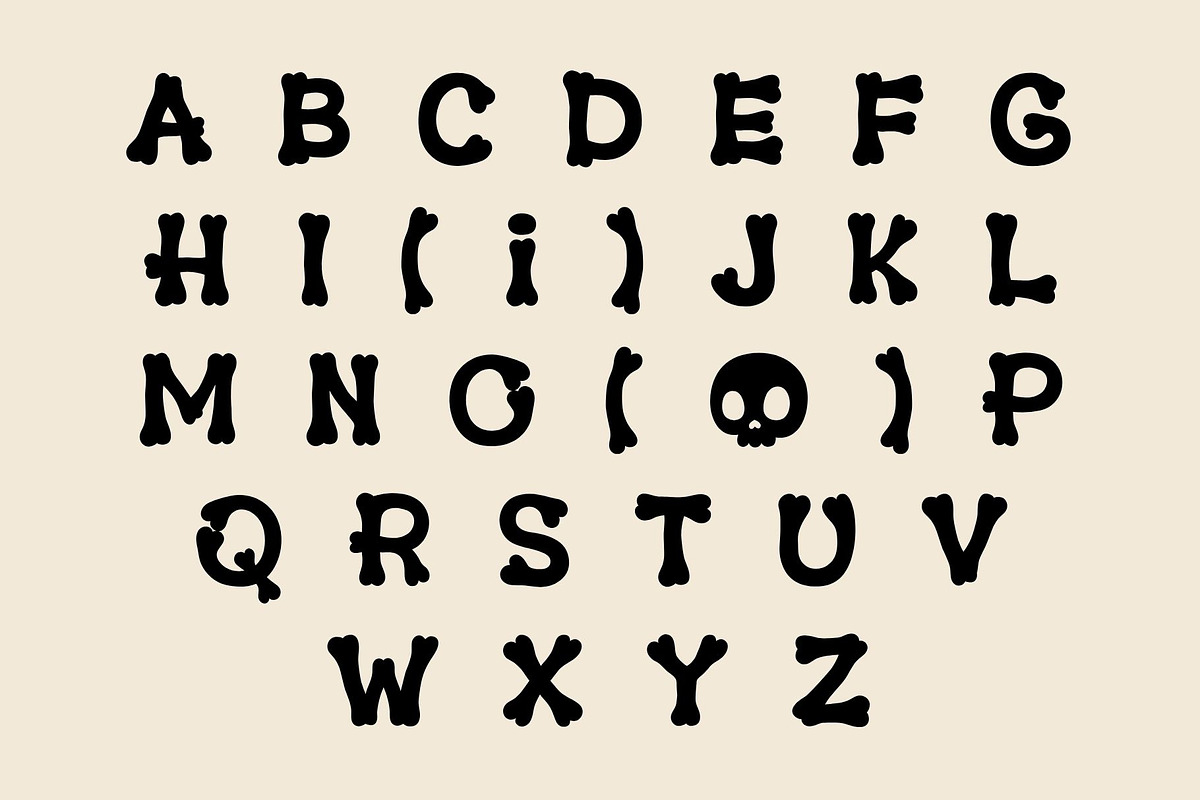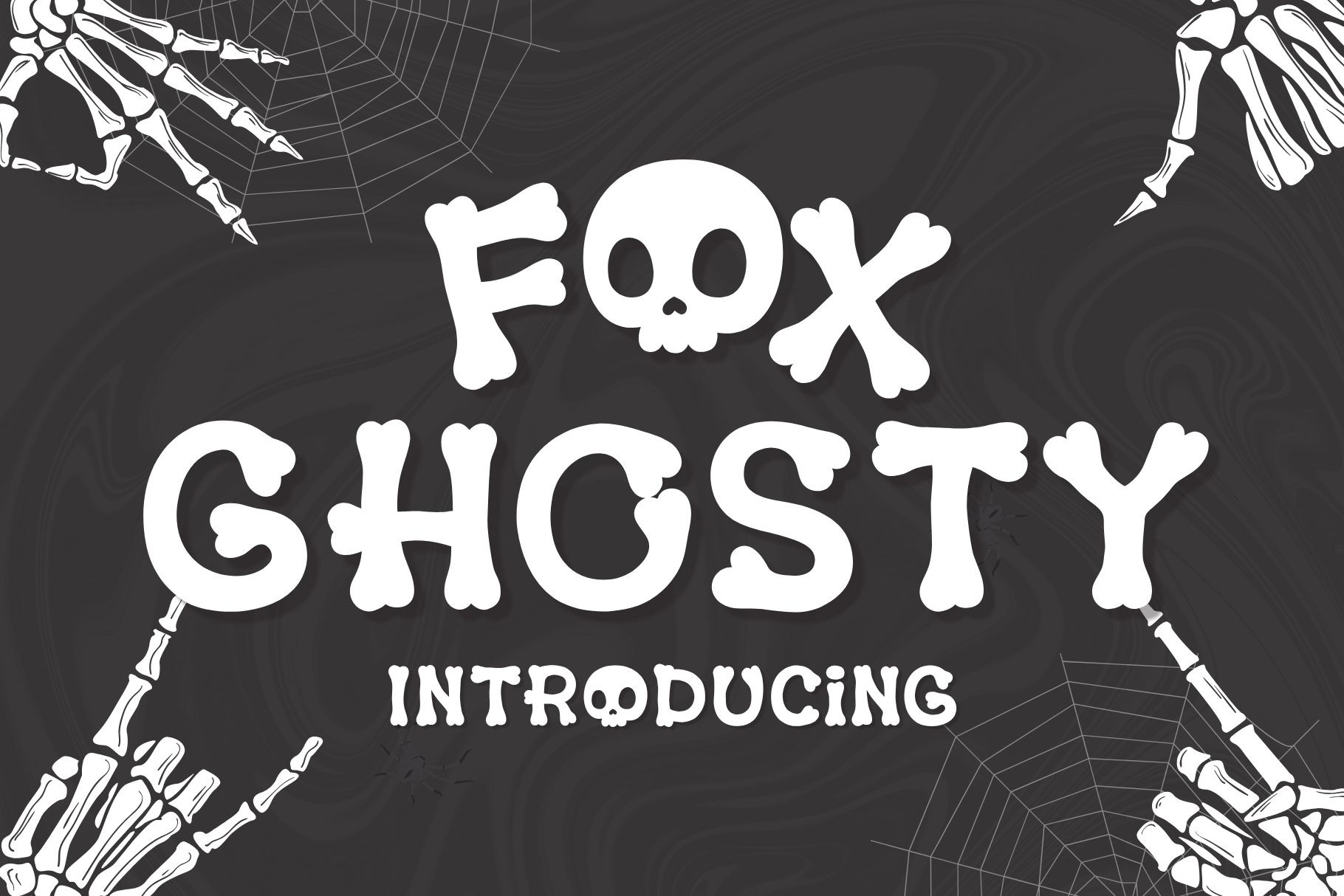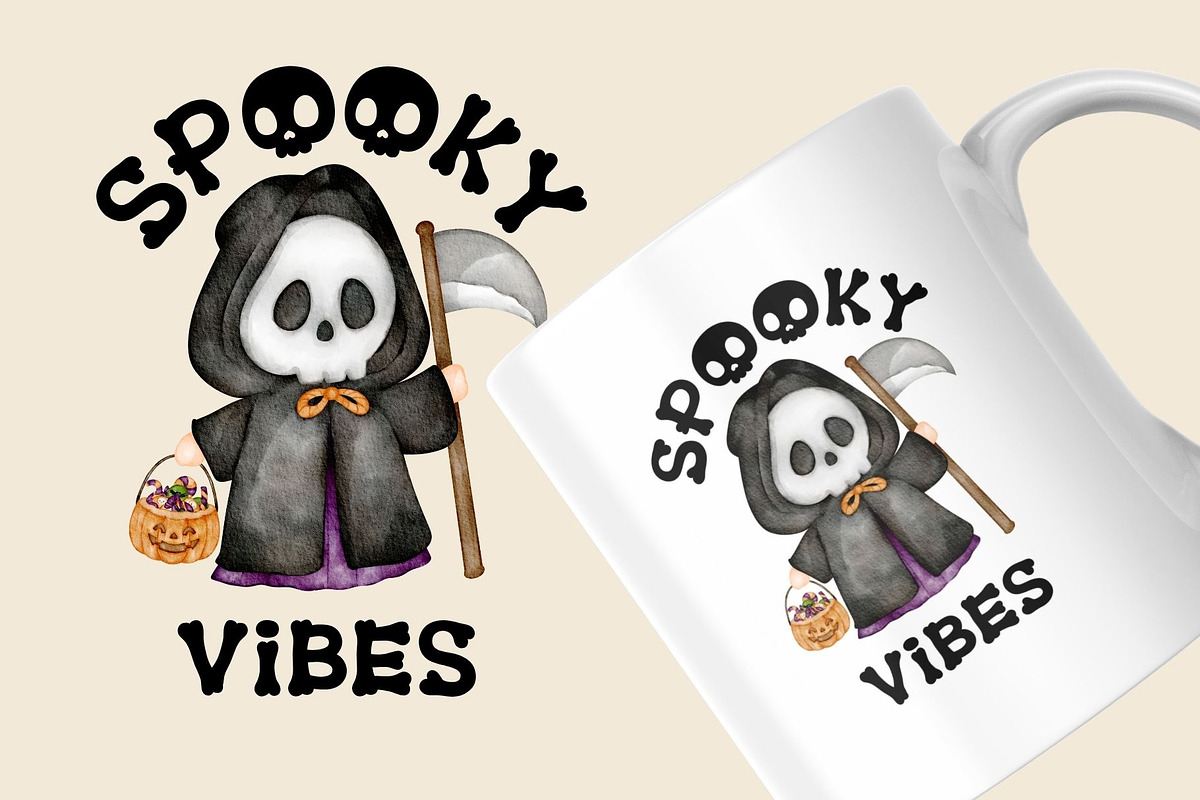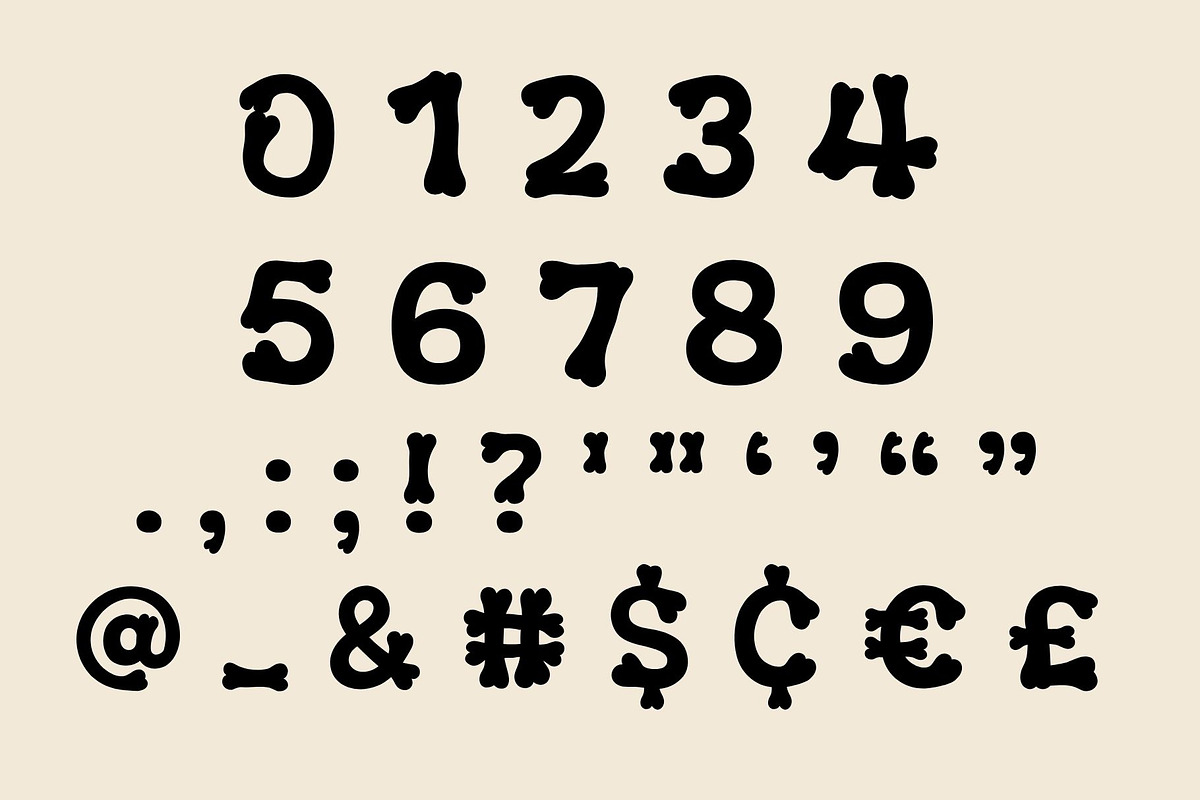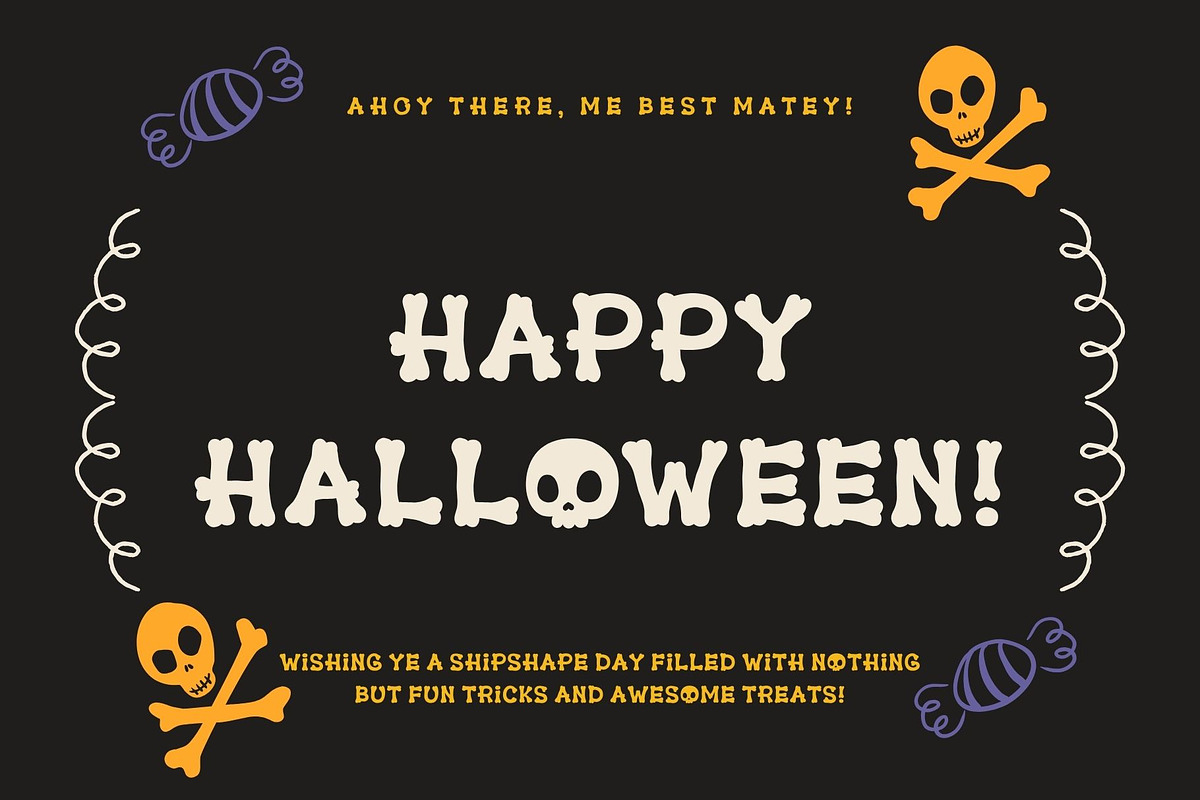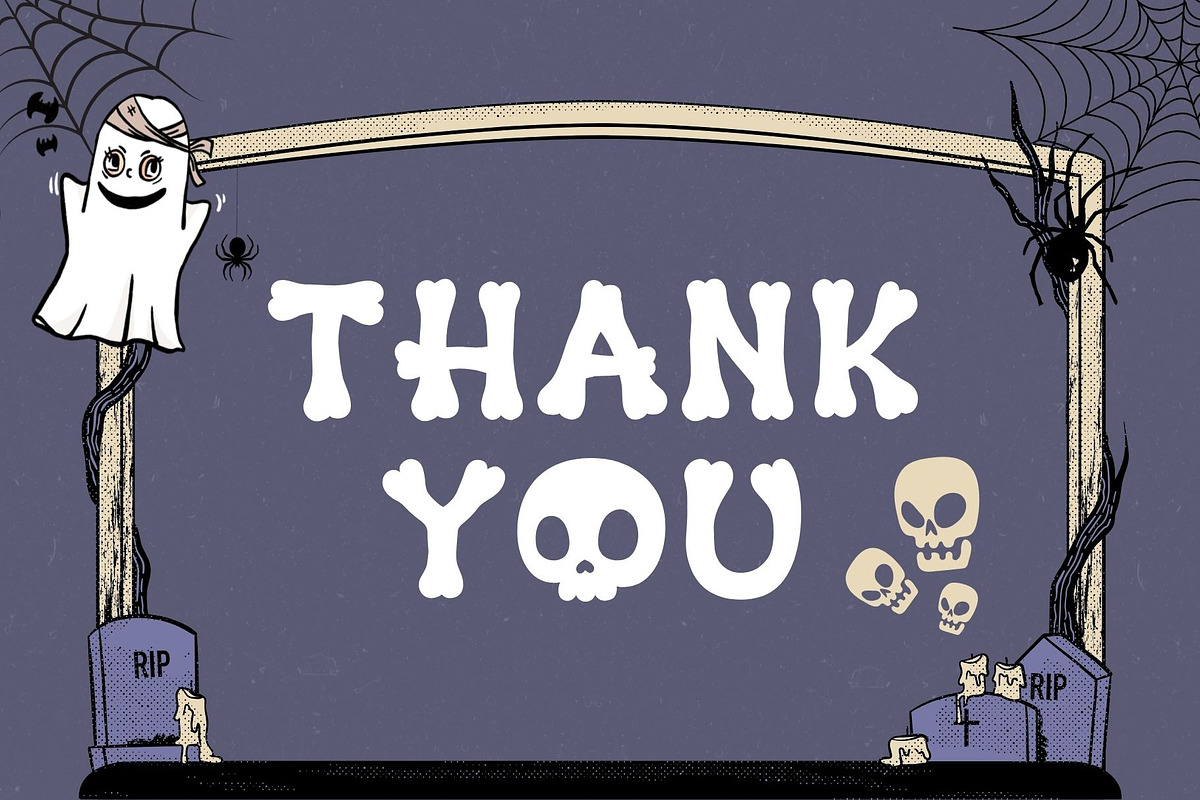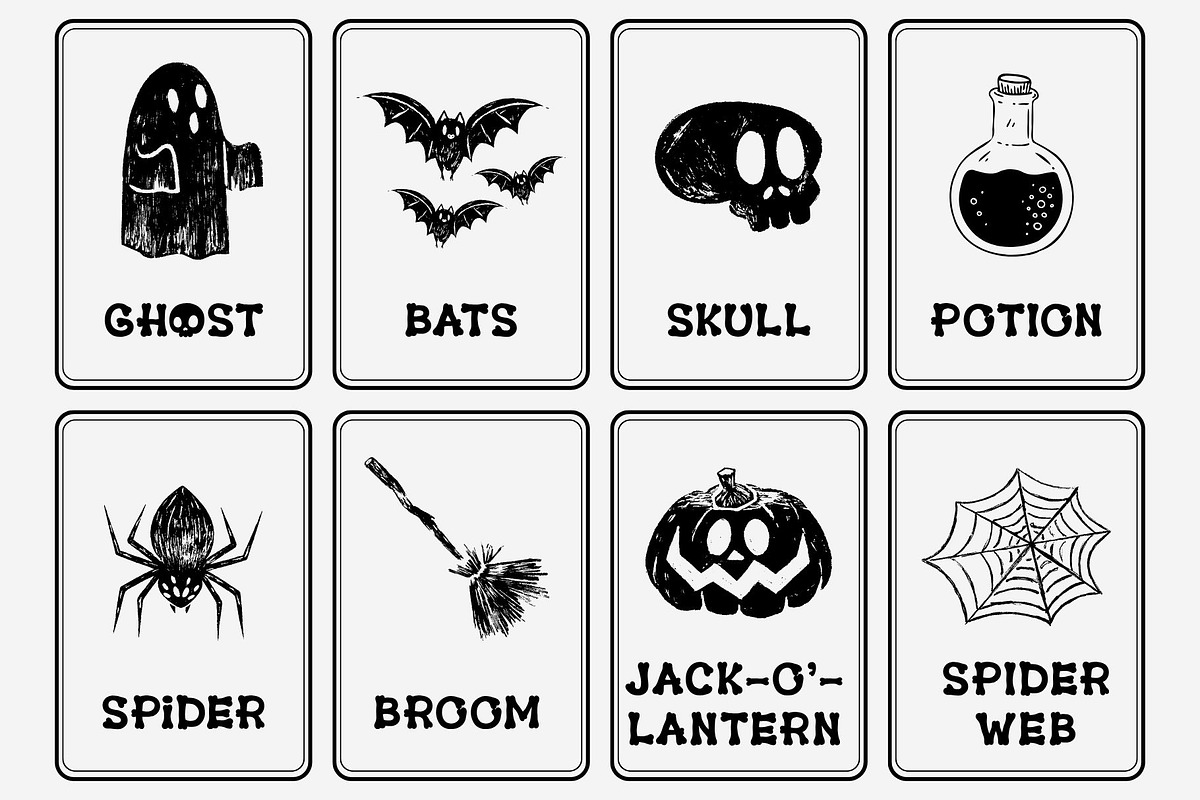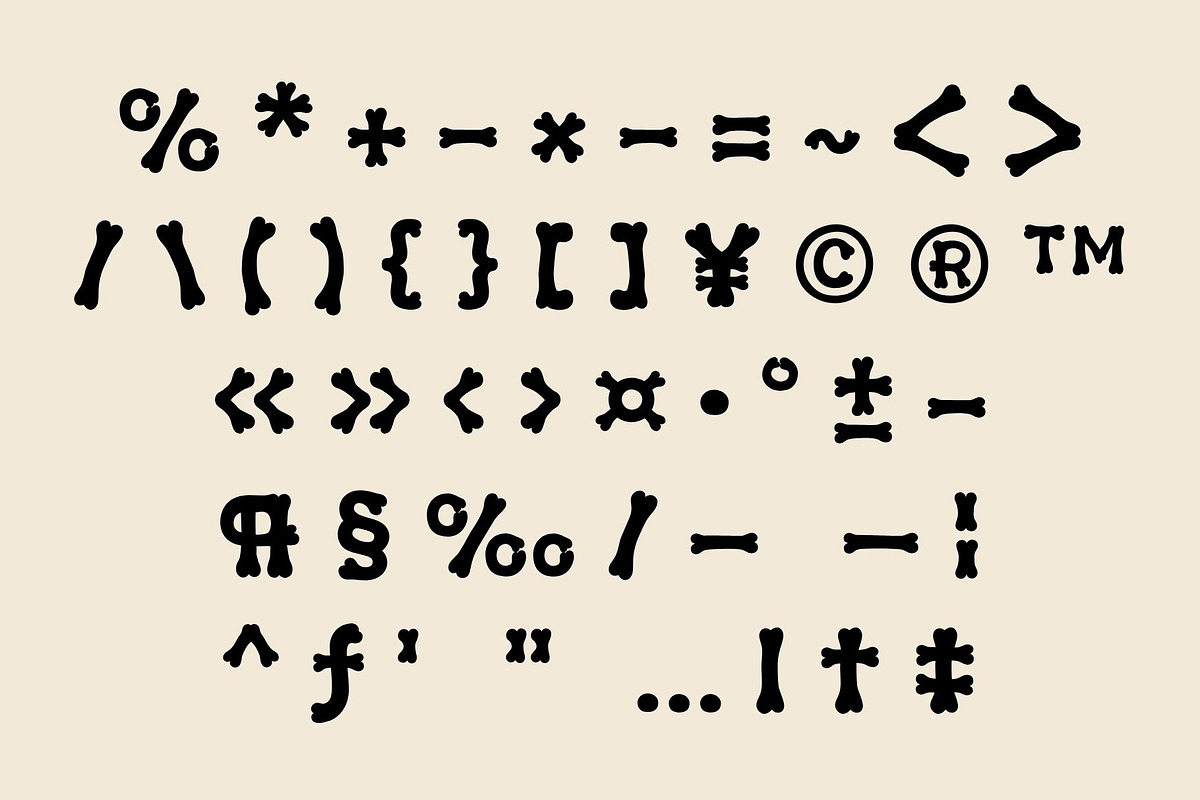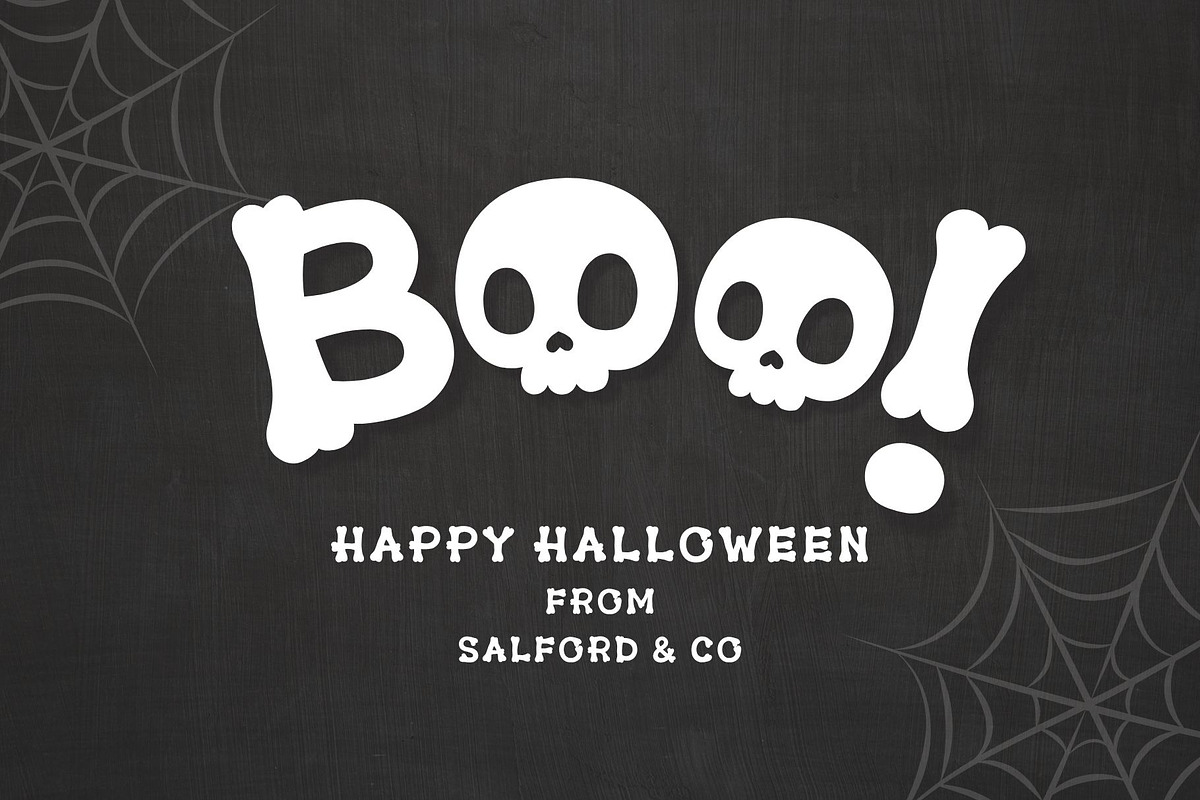
Fox Ghosty Font
Fox Ghosty – Spooky & Playful Halloween Font
Bring your Halloween projects to life with Fox Ghosty, a bold and playful display font inspired by spooky skeleton bones and ghostly vibes. Perfect for creating fun yet creepy designs, this font blends a touch of fright with a friendly, cartoonish style.
With its bone-shaped letters, skull-themed details, and hand-drawn charm, Fox Ghosty is perfect for:
Halloween party invitations
Trick-or-treat posters
Spooky branding & packaging
Greeting cards and seasonal decor
Whether you’re designing for kids’ events or adding a quirky touch to your scary projects, Fox Ghosty will make your text pop with a hauntingly cute personality.